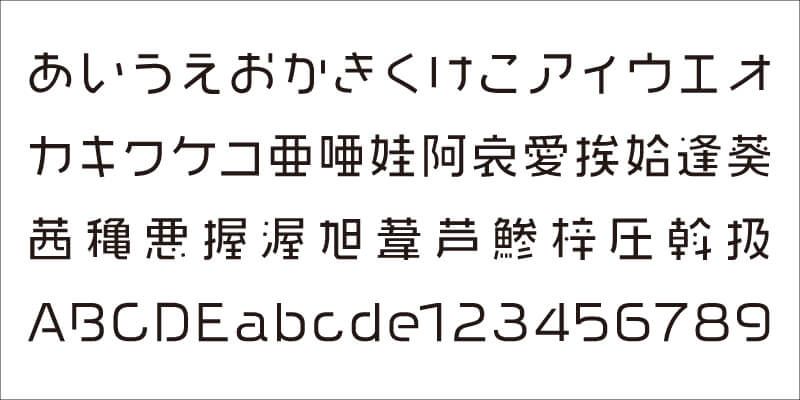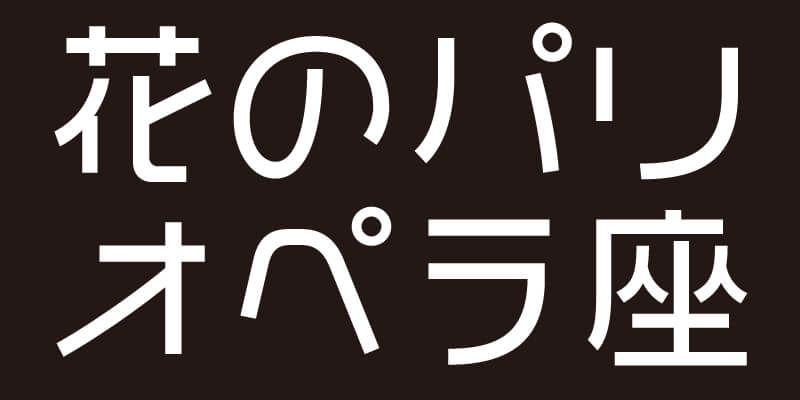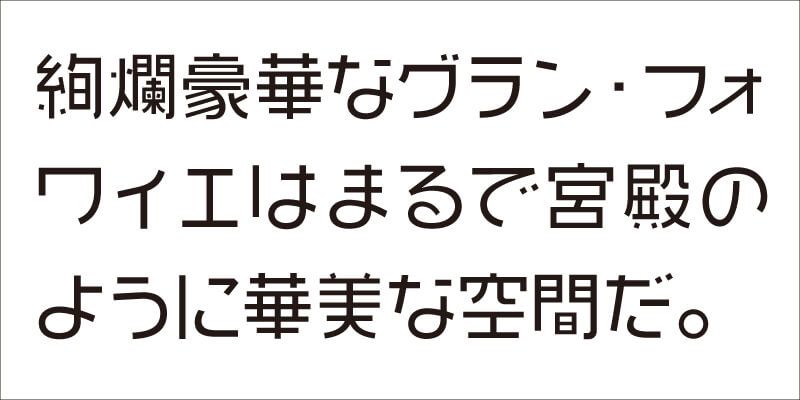
The key concept of this design is “beauty in imbalance”. VDL-MegaG is a creative gothic (sans-serif) typeface, in which the effect of déformation is maximized, while still retaining a good level of beauty and elegance in this quality typeface. The effect gives this unique typeface a visual balance. VDL-MegaG has a readable, light, rhythmic and lively expression.
The ethos of Visual Design Laboratory (VDL) is to balance the natural beauty of letterforms with rigorous standards for readability and legibility. VDL offers a comprehensive collection known as “VDL Designers Fonts” (VDLデザイナーズフォント), which is sure to resonate with designers seeking a typeface that’s highly individual while maintaining a broad appeal.